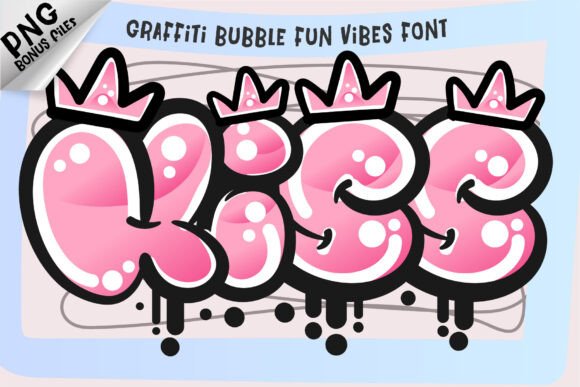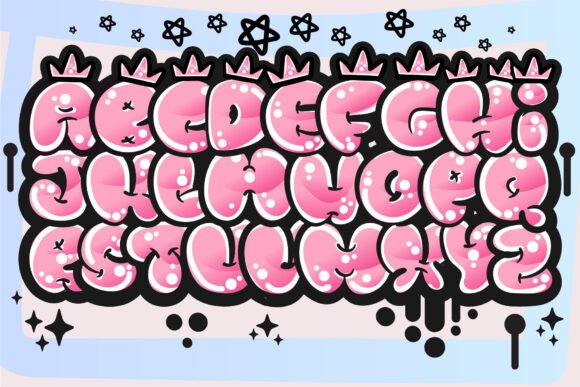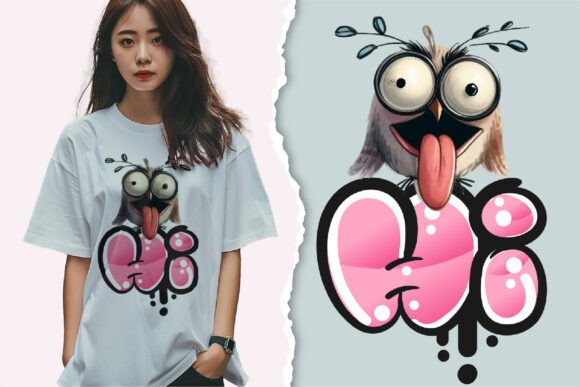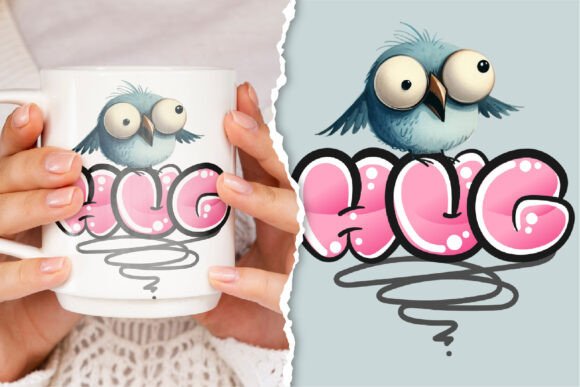
Kiss Font
About the Kiss Font
The wait is over! The incredible Kiss Font is now available for your design toolkit. Kiss is an adorable, vibrant graffiti bubble font with chunky, colorful letters ideal for creative kids’ crafts, playful DIY projects, educational materials, invitations, cheerful decorations, school posters, scrapbooking, fun stickers, and more.
Kiss Font’s playful energy makes it perfect for projects targeting children or young adults. It excels in headlines, short text blocks on posters and invitations, and packaging for products with a fun, youthful appeal. However, its low x-height and informal style make it unsuitable for body text or user interfaces requiring high readability.
Pairing Kiss with a clean sans-serif like Open Sans for body copy creates a strong visual contrast and balanced readability. For a more sophisticated look, consider pairing it with a classic serif like Garamond for supporting text, tempering its vibrancy with a touch of elegance.
The font’s overall personality is undeniably cheerful and bold, making it a strong choice for brands focused on fun, creativity, and child-friendly products. Avoid using it where a more serious or sophisticated tone is required.